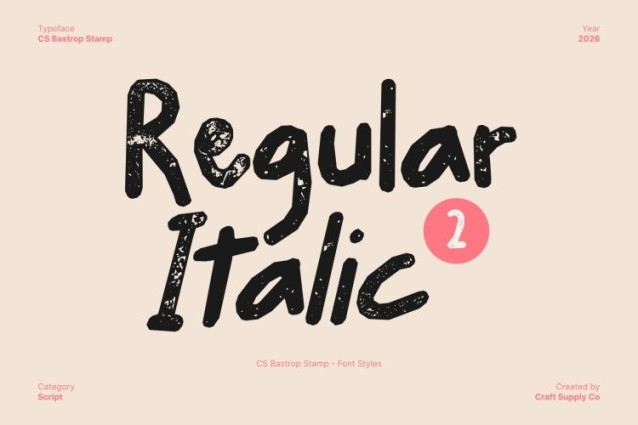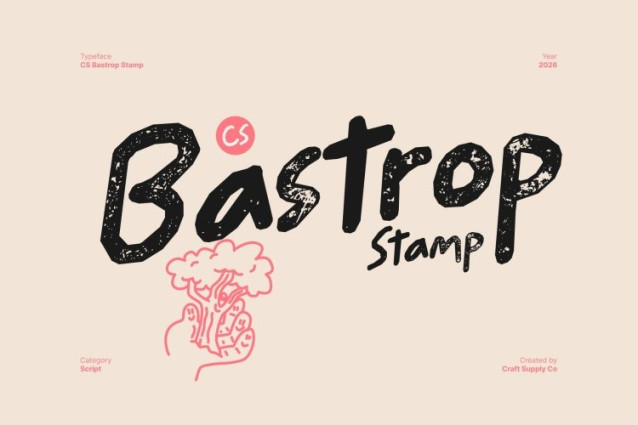
CS Bastrop Stamp Font
CS Bastrop Stamp Font This is a cute handwritten sans serif font that radiates charm and cheerfulness in every stroke. Its rounded shapes and smooth, friendly lines create a warm and approachable appearance. Enhanced with a stamp effect, the font gains subtle texture and gentle imperfections, giving it a vintage, hand-pressed feel that adds depth and artistic personality to every design.
Rounded Shapes with Warm, Vintage Character
The soft curves and rounded forms give this font its friendly, inviting nature. Combined with the stamped texture, each letter feels naturally hand-drawn and slightly worn, evoking the charm of old prints and handcrafted lettering. This balance of cuteness and texture makes it especially appealing for designs aimed at children a joyful, human touch.
Playful Energy with Artistic Texture
Designed to bring fun and positive energy, features a lively handwritten rhythm enriched by a textured, old-style finish. The stamp effect enhances its expressive quality, making every word feel dynamic and full of character. It’s an excellent choice for party invitations, children’s books, greeting cards, playful branding, and creative packaging.
Perfect for Fun, Whimsical, and Creative Designs
Whether you’re creating kids’ projects, cheerful logos, or colorful posters, this font adapts effortlessly to playful and imaginative themes. Its blend of handwritten charm, sans serif simplicity, and vintage stamped texture ensures every design feels fresh, friendly, and full of personality.